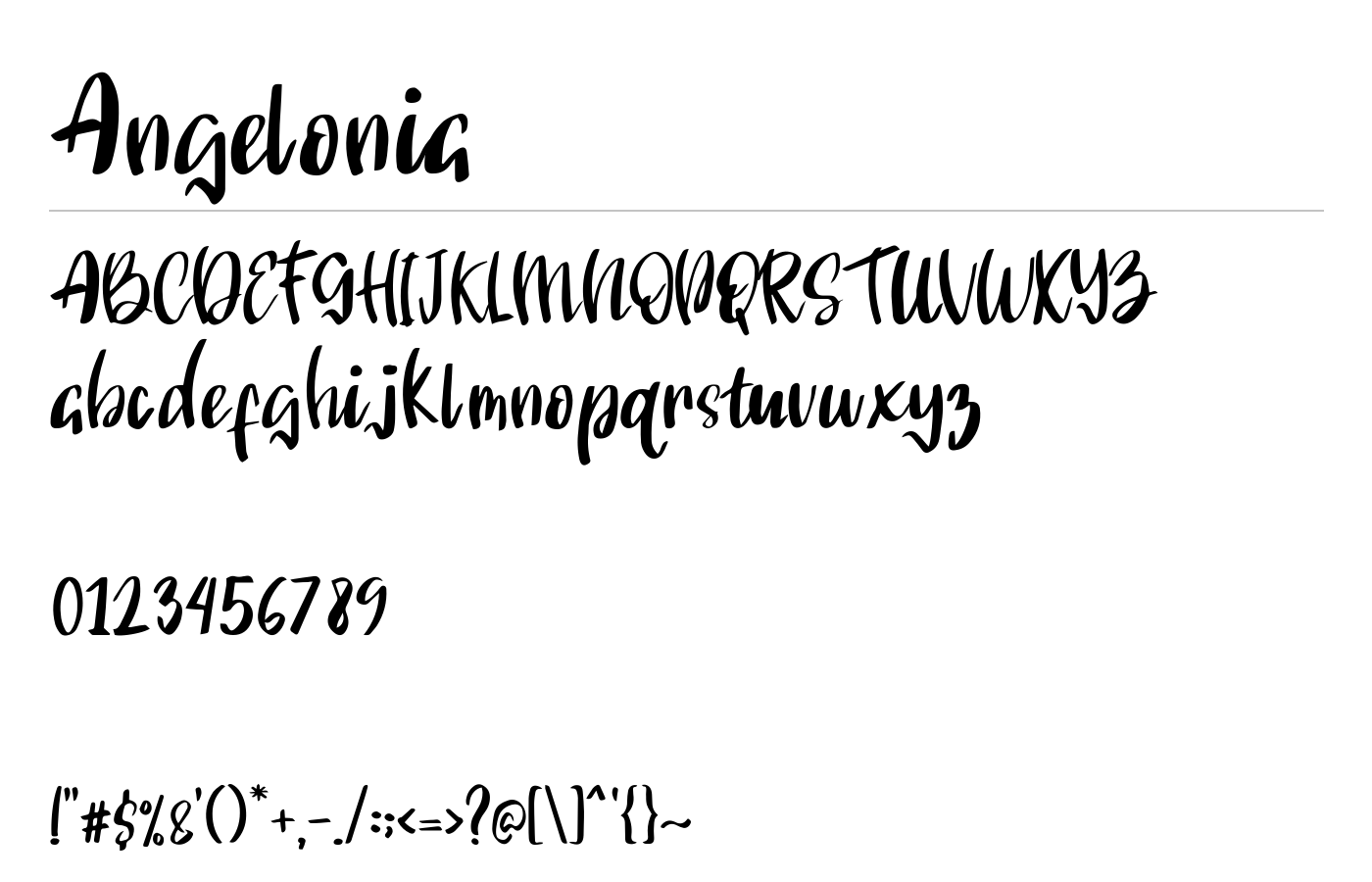
Angelonia is a lively and expressive script font with a hand-brushed feel that blends charm and modernity. Its fluid strokes and varying thicknesses create an inviting, artistic personality ideal for creative branding, logos, and eye-catching headlines. This font works beautifully where a personal, dynamic touch is needed to convey warmth and creativity.
Angelonia Font
About Angelonia Font